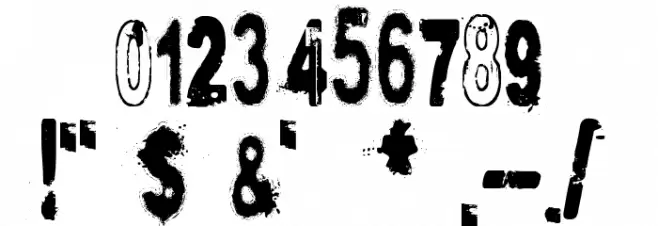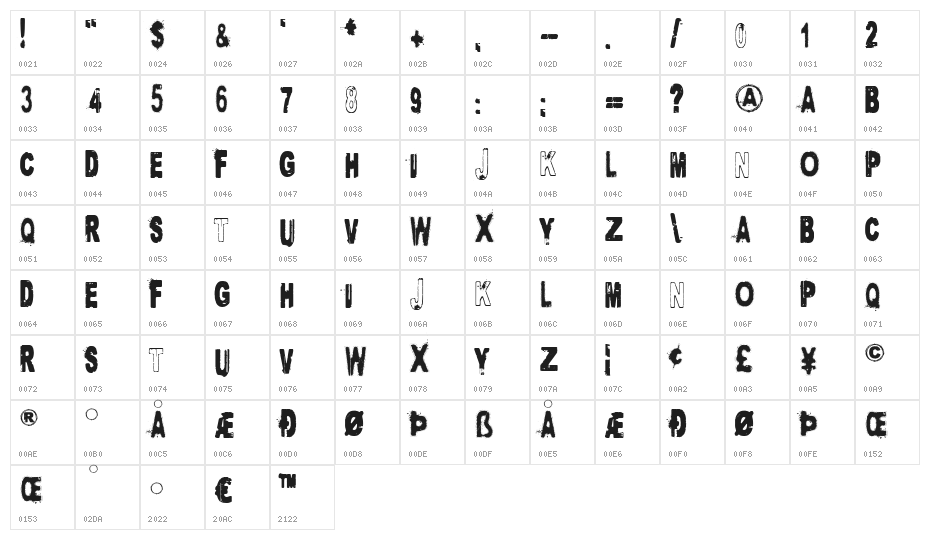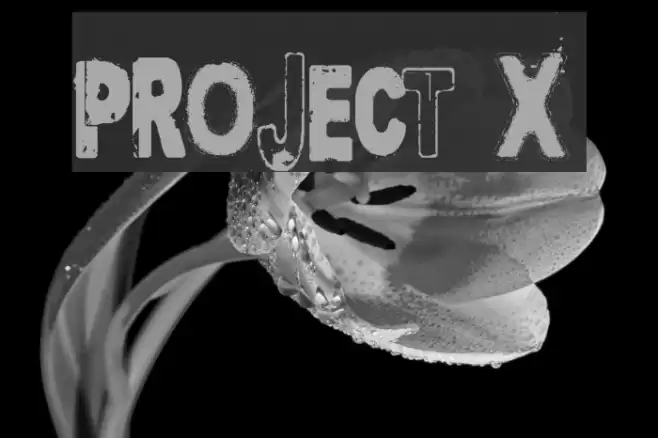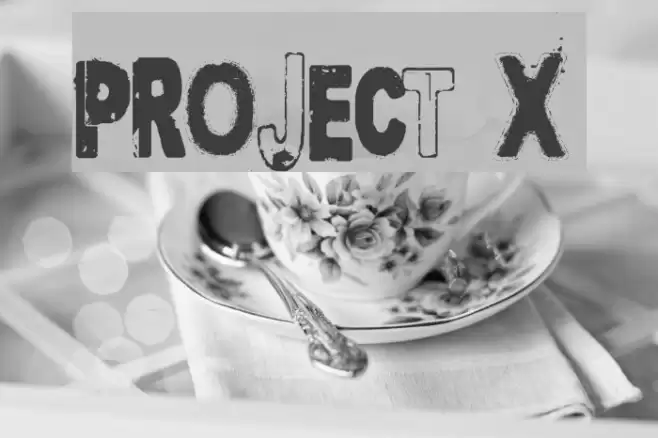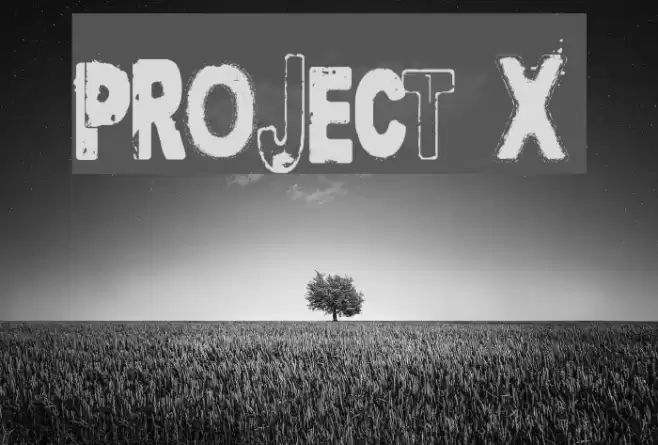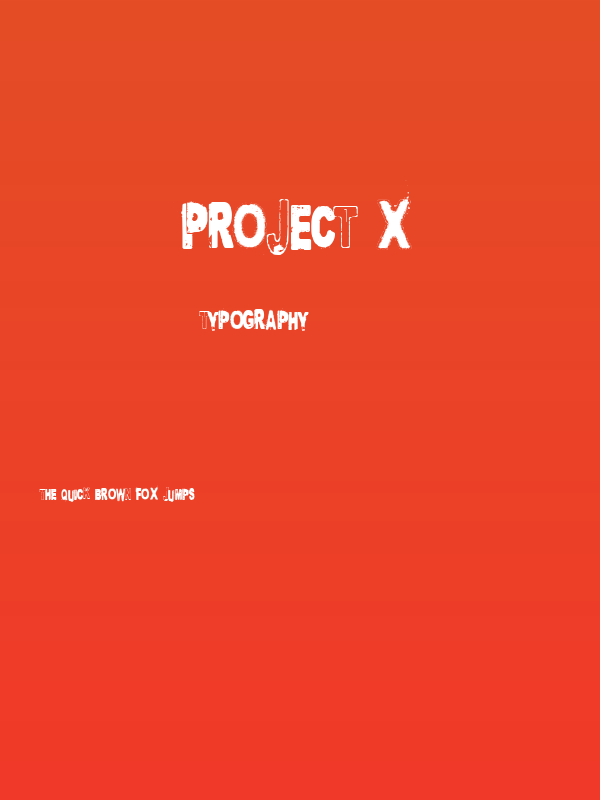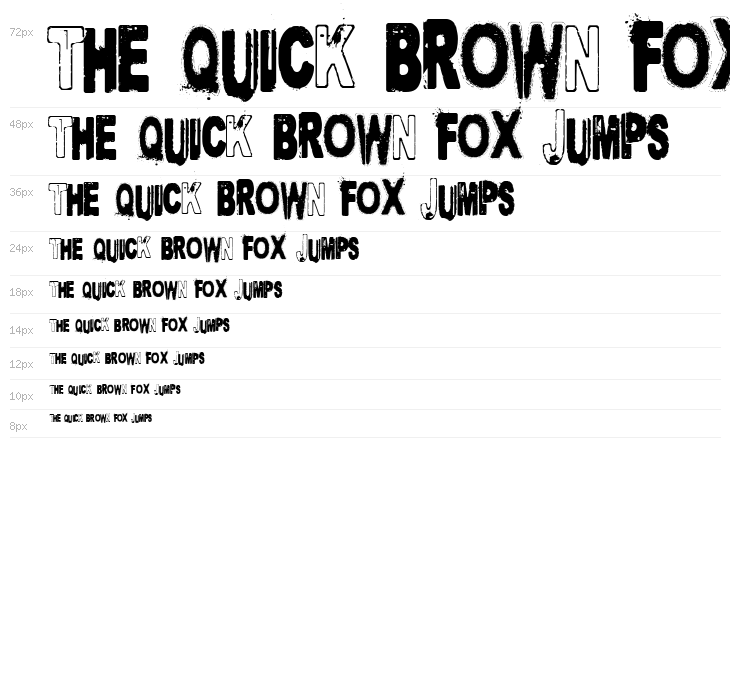
Project X Font
This font features a bold and distressed style, characterized by a grunge texture that gives it a rugged, worn appearance. The uppercase letters are prominent and impactful, while the lowercase letters maintain a consistent style with slightly less emphasis. Numbers and special characters follow the same distressed aesthetic, making the font cohesive across all characters. The irregular edges and varying stroke thickness contribute to its unique, edgy look, ideal for projects that require a bold statement.
| Overall Style | Grunge, Edgy, Urban |
| Proposed Projects | Ideal for album covers, posters, urban-themed designs, and branding that requires a bold, edgy statement. |